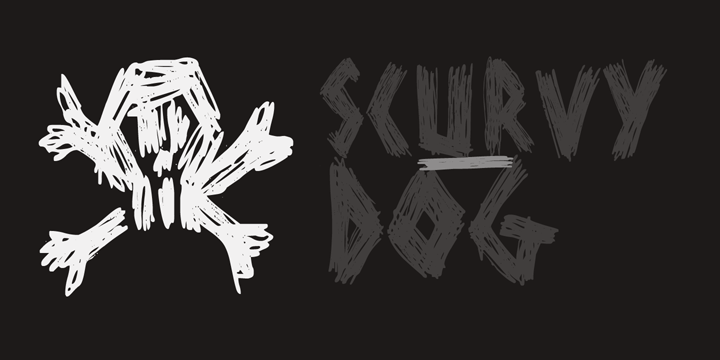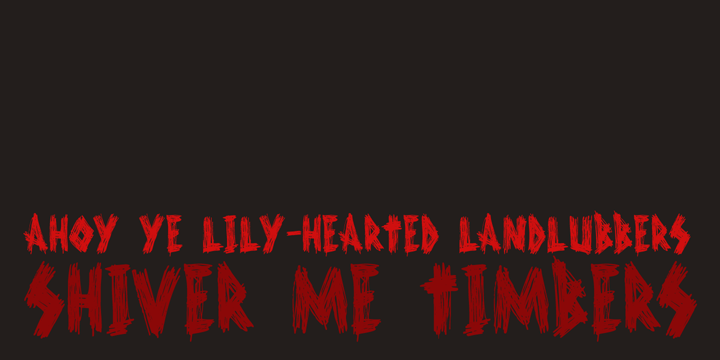
Scurvy Dog
Aye, me lovelies, this be Scurvy Dog, a grand font! The letters were etched into a dead man's chest with a blunt rapier, pickled in brine and covered in spew. Ye could be using this crafty penmanship for yer logs or writing yer dear ol' mothers a letter.